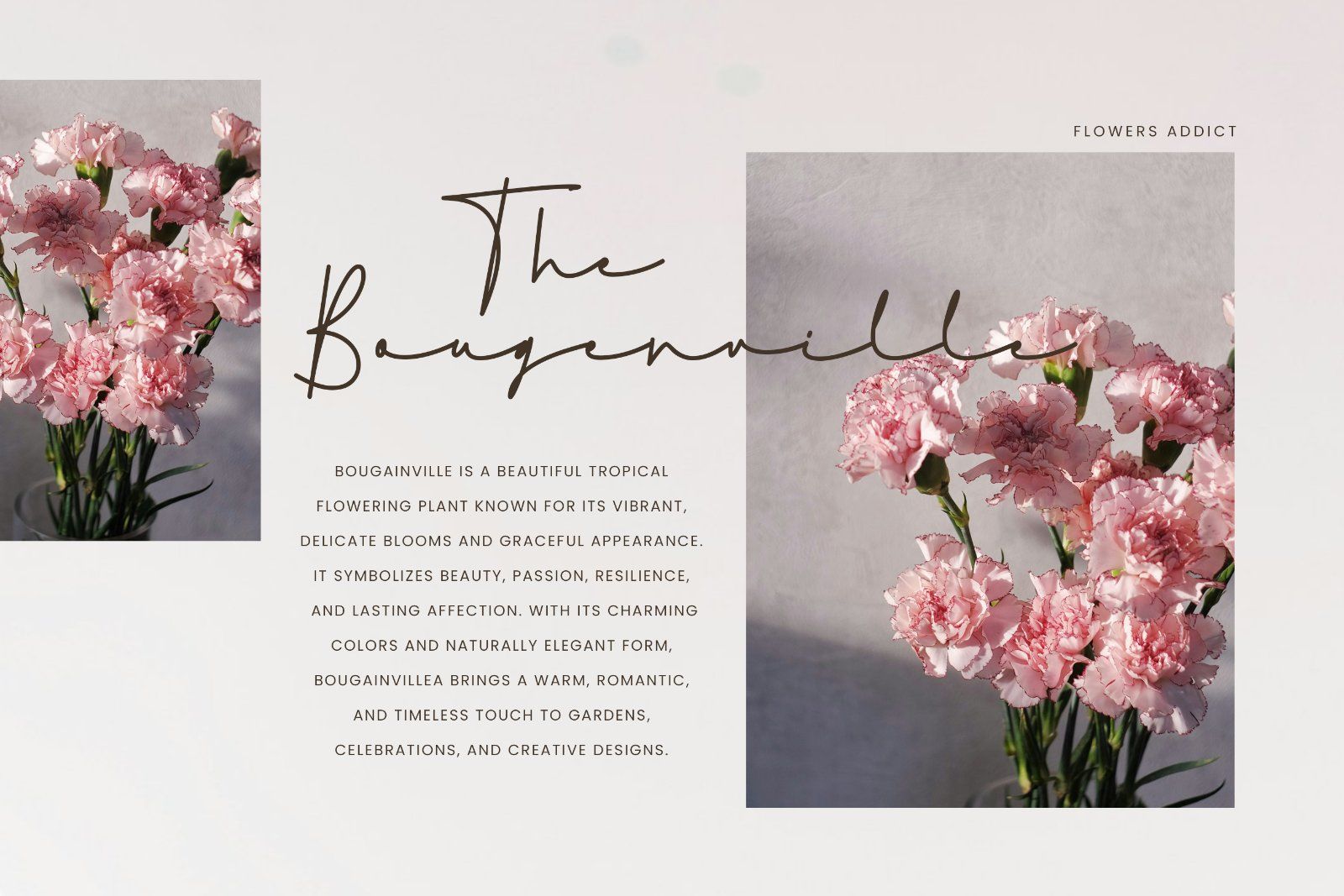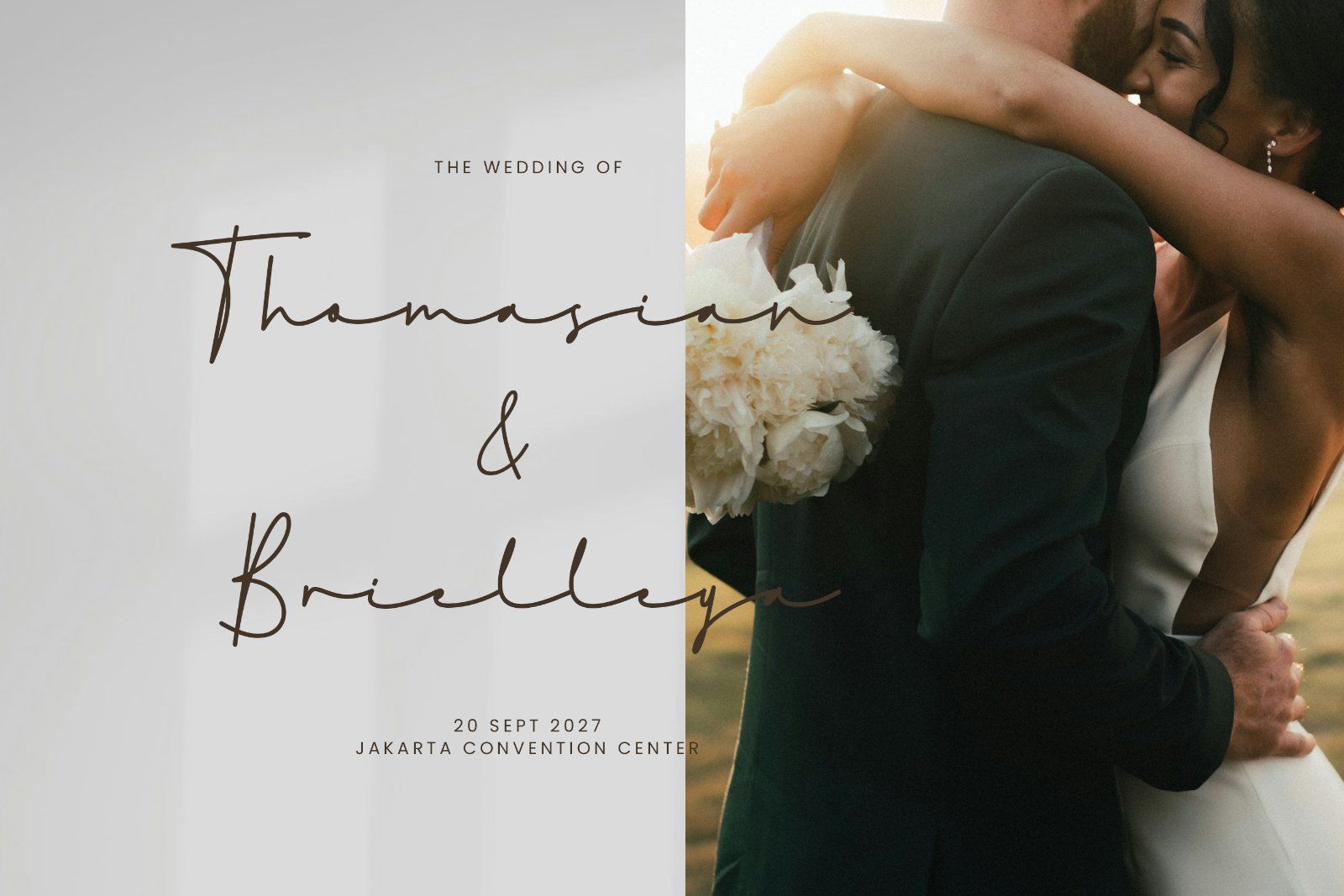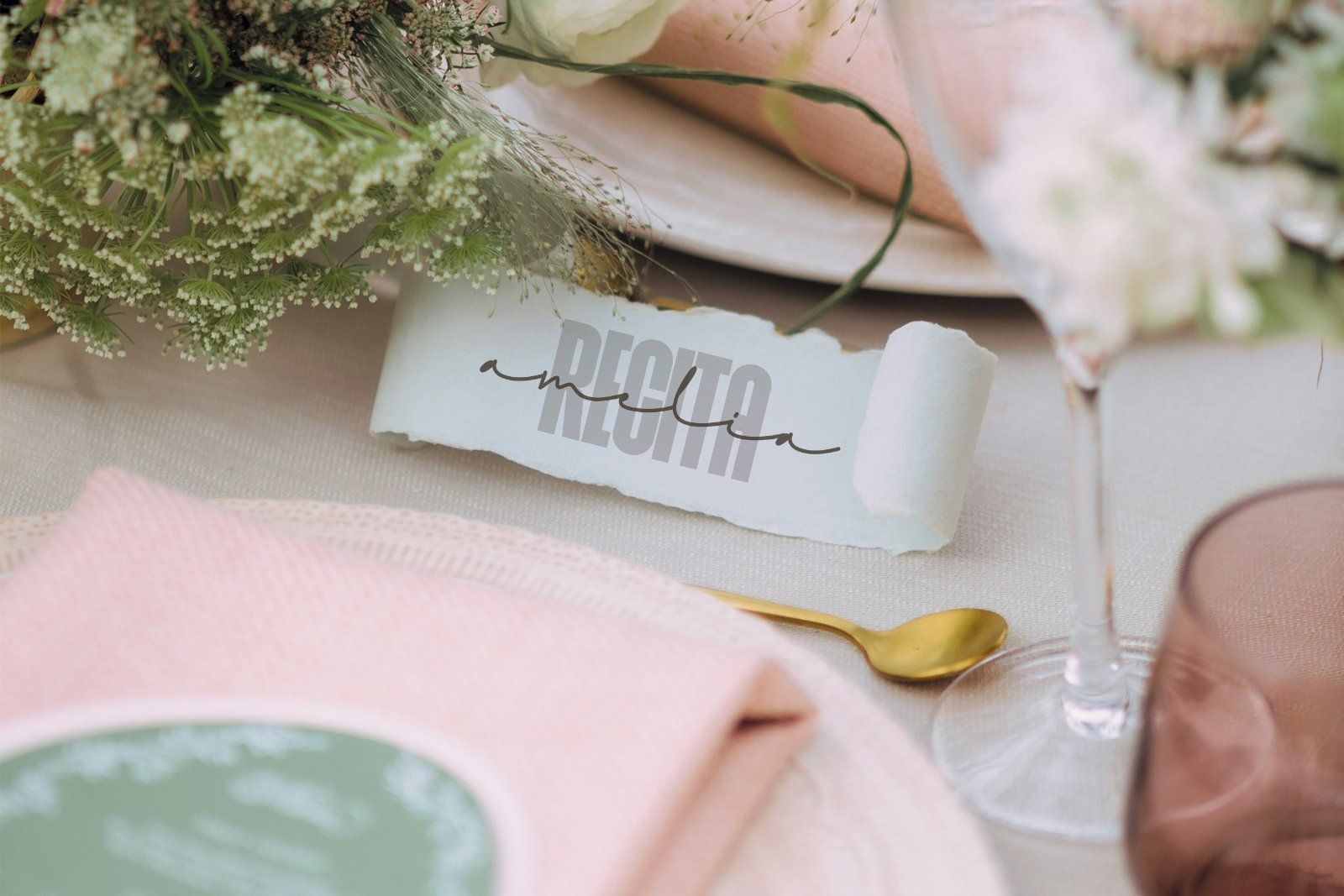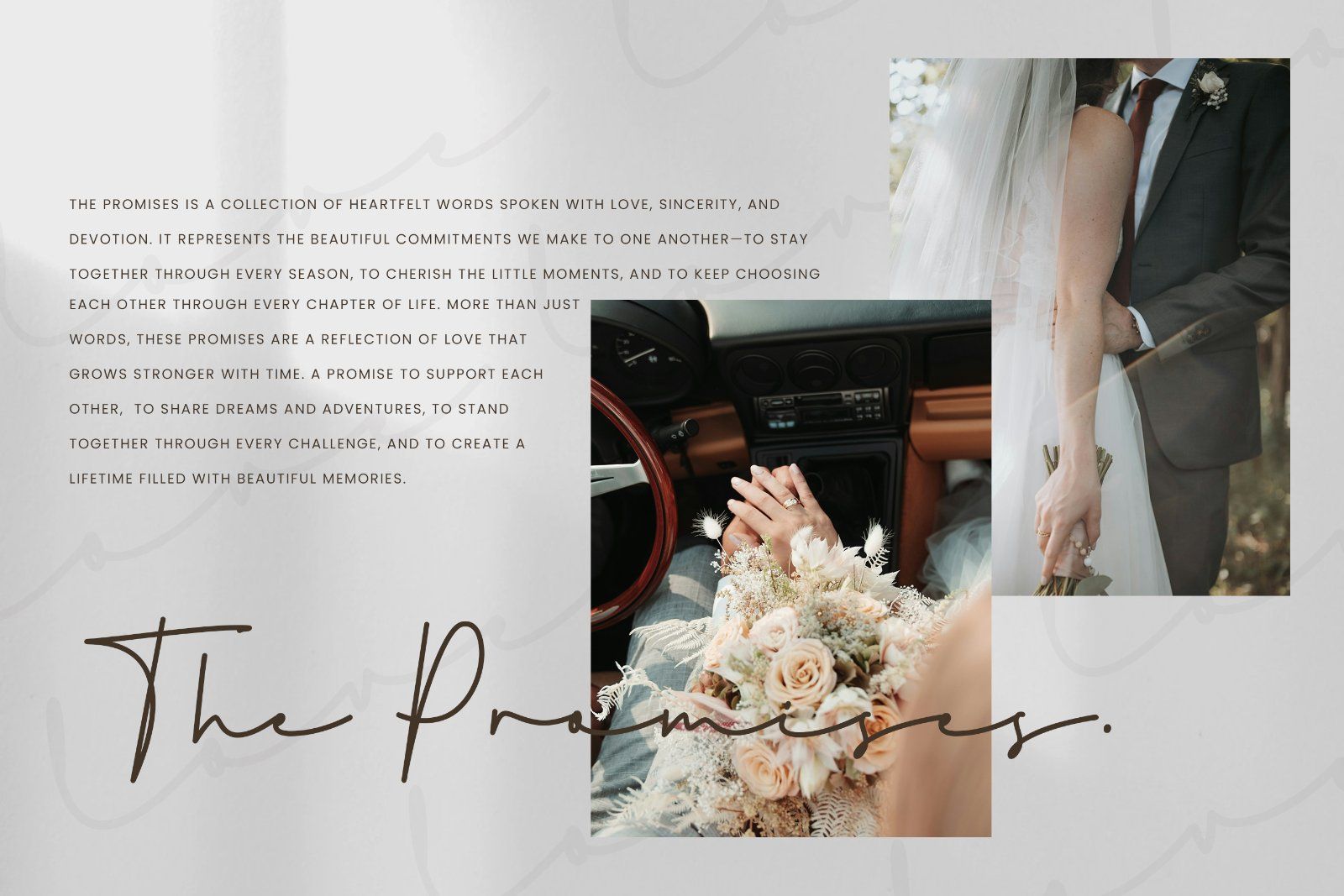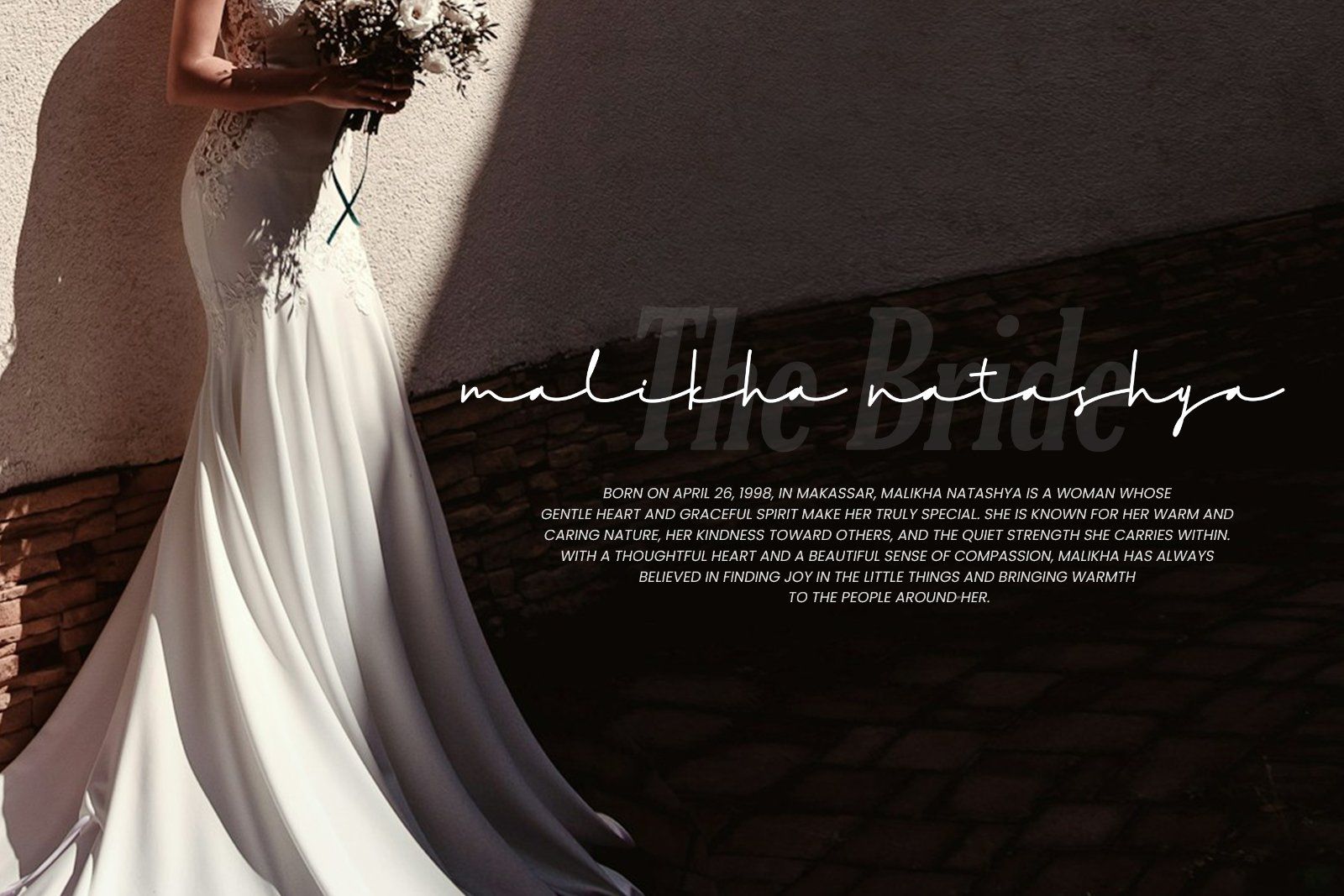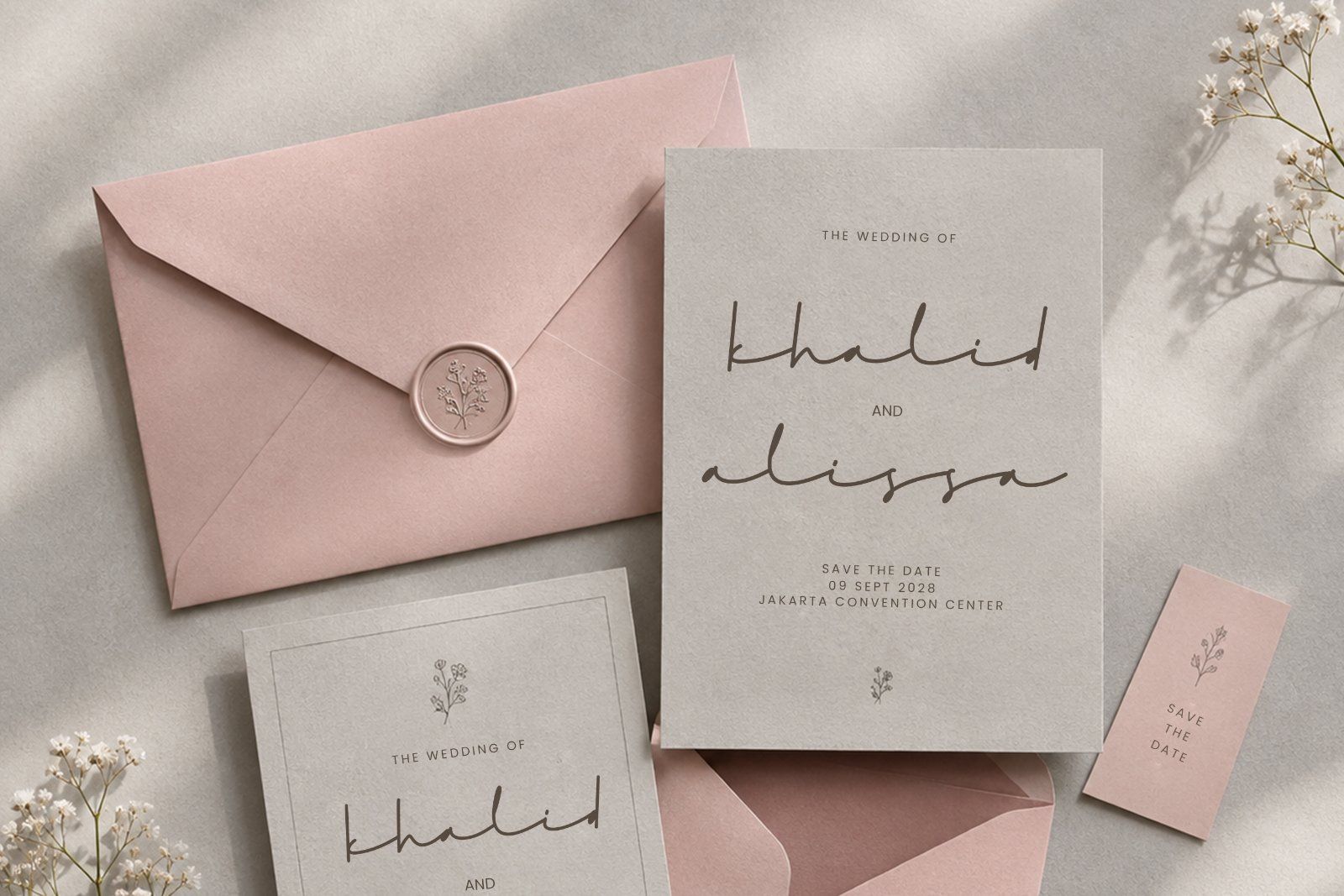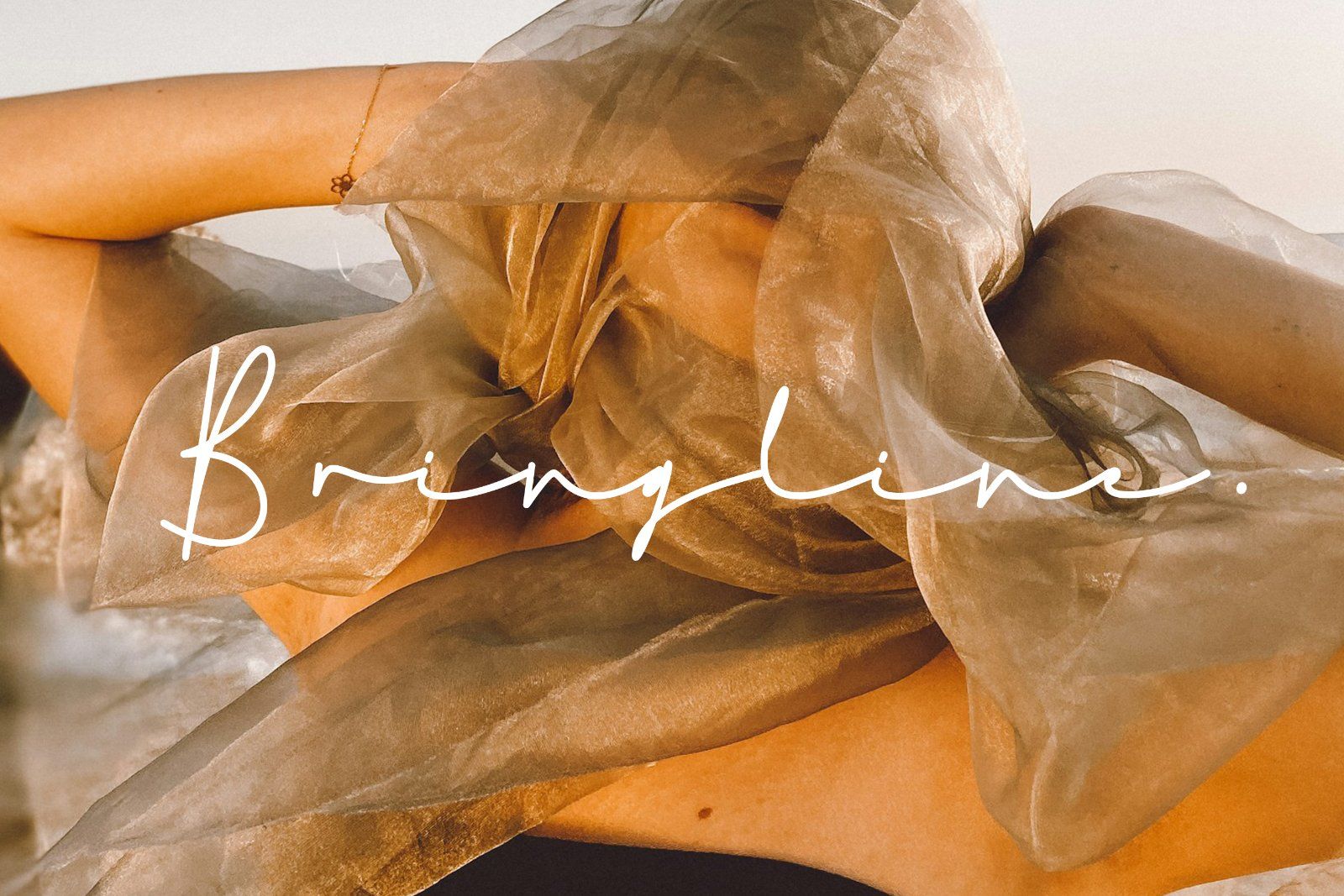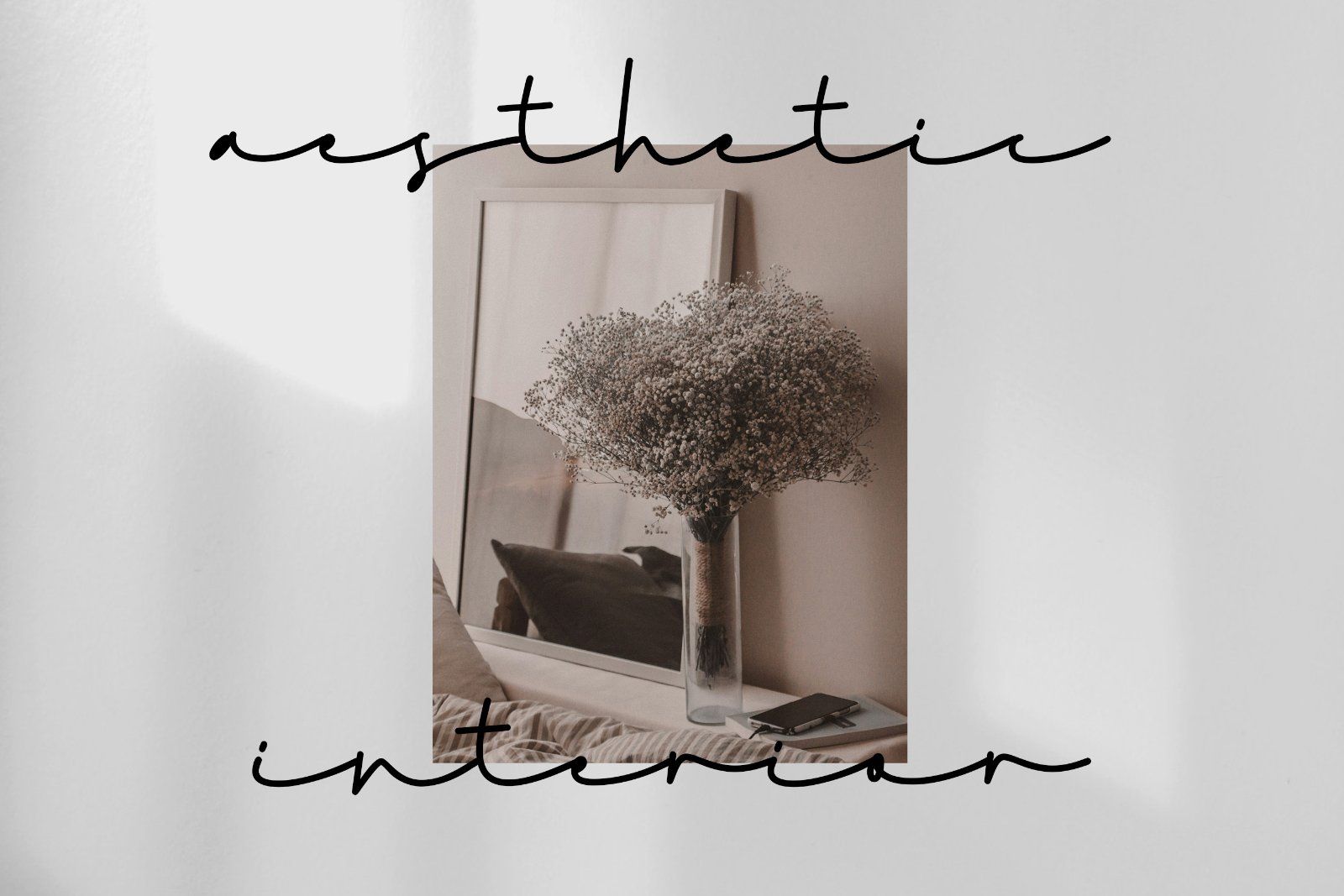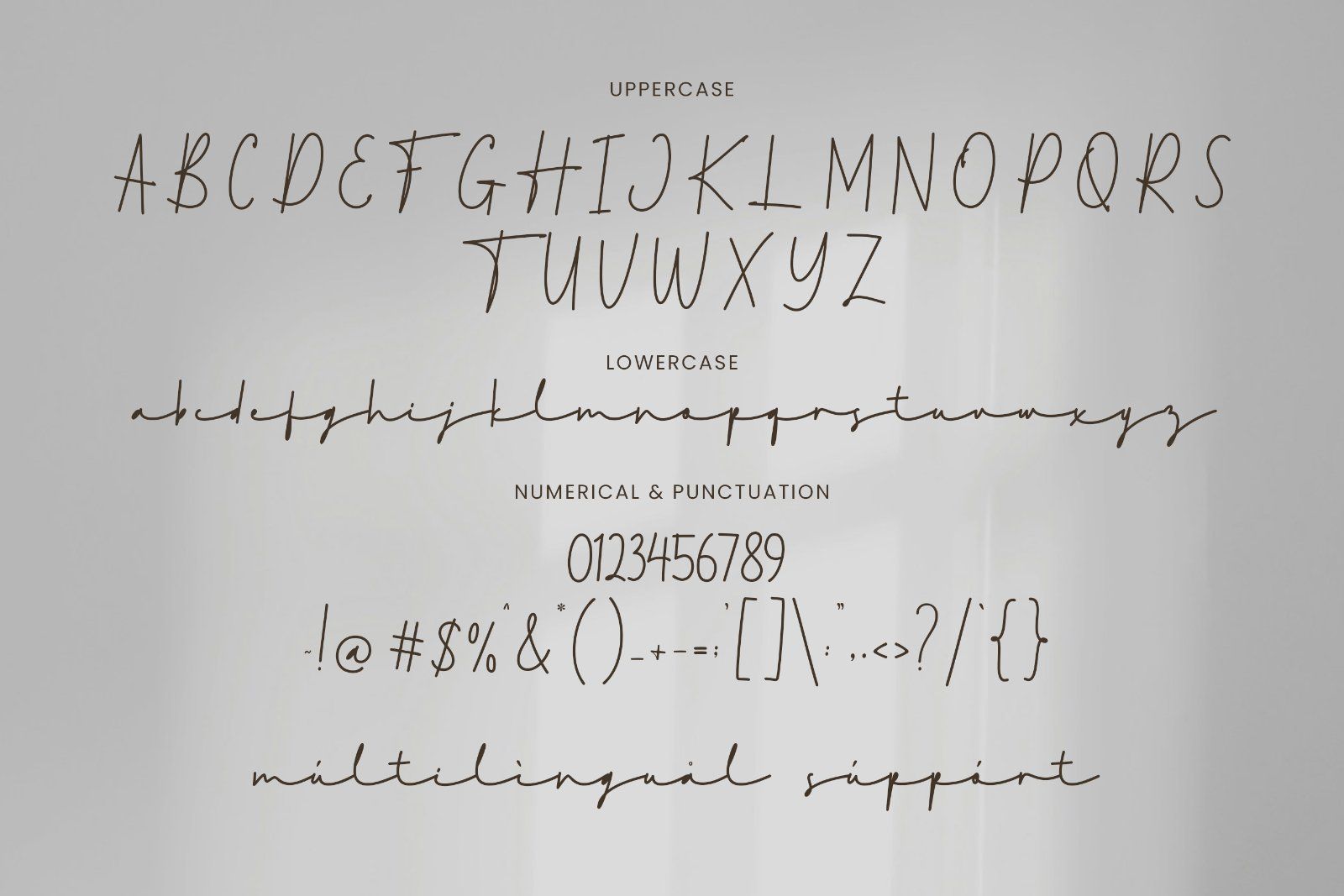
Flamelisse a beautiful handwritten script font designed to bring a natural, elegant, and personal touch to your creative projects.
With its smooth flowing strokes, delicate handwritten character, and sophisticated signature style, Fameliyne is perfect for creating designs that feel romantic, graceful, personal, and effortlessly stylish.
Whether you're designing wedding stationery, a luxury brand identity, social media content, or personalized gifts, Flamelisse adds a beautiful handwritten finish to every project.
✦ Perfect For
• Wedding invitations & stationery
• Wedding logos & monograms
• Signature designs
• Branding & logo design
• Beauty & skincare branding
• Fashion & boutique brands
• Greeting cards
• Quotes & inspirational designs
• Packaging & product labels
• Photography watermarks
✦ Font Features
• Elegant handwritten script style
• Smooth and flowing letterforms
• Natural signature appearance
• Romantic & feminine aesthetic
• Perfect for both personal and professional projects
• Easy to combine with serif or sans serif fonts
Flamelisse is made for designers, small businesses, brides, creatives, and anyone looking for an elegant handwritten touch.